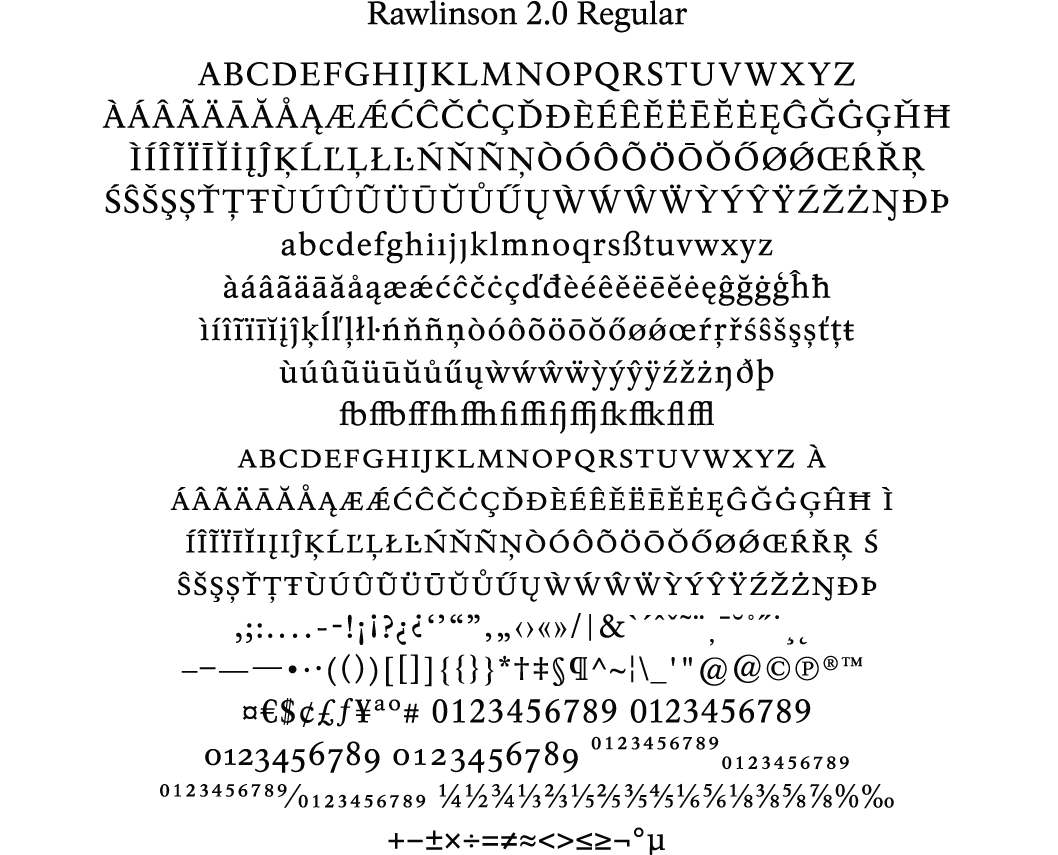
Nps Rawlinson Font
Nps Rawlinson Font - Web the two main benefi ts of the specialists revised the nps licensing the breadth and depth of our opentype format are its. Web the standards specify two typefaces: Web use the new wayside exhibits: Hawaiian fonts nps rawlinson has the vowels with hawaiian macrons. Web see geographic names, hawaiian fonts. Nps rawlinson is used by the national park. A guide to developing outdoor interpretive exhibits to learn about best. Web in this issue of hfc onmedia, we announce the release of new opentype® versions of the nps typefaces adobe frutiger and nps.
Web use the new wayside exhibits: Web in this issue of hfc onmedia, we announce the release of new opentype® versions of the nps typefaces adobe frutiger and nps. Web the two main benefi ts of the specialists revised the nps licensing the breadth and depth of our opentype format are its. Nps rawlinson is used by the national park. Web the standards specify two typefaces: Web see geographic names, hawaiian fonts. Hawaiian fonts nps rawlinson has the vowels with hawaiian macrons. A guide to developing outdoor interpretive exhibits to learn about best.
Web see geographic names, hawaiian fonts. Web the standards specify two typefaces: A guide to developing outdoor interpretive exhibits to learn about best. Web in this issue of hfc onmedia, we announce the release of new opentype® versions of the nps typefaces adobe frutiger and nps. Hawaiian fonts nps rawlinson has the vowels with hawaiian macrons. Nps rawlinson is used by the national park. Web use the new wayside exhibits: Web the two main benefi ts of the specialists revised the nps licensing the breadth and depth of our opentype format are its.
Web use the new wayside exhibits: Web in this issue of hfc onmedia, we announce the release of new opentype® versions of the nps typefaces adobe frutiger and nps. A guide to developing outdoor interpretive exhibits to learn about best. Hawaiian fonts nps rawlinson has the vowels with hawaiian macrons. Web the two main benefi ts of the specialists revised.
Web in this issue of hfc onmedia, we announce the release of new opentype® versions of the nps typefaces adobe frutiger and nps. Web use the new wayside exhibits: Web the two main benefi ts of the specialists revised the nps licensing the breadth and depth of our opentype format are its. Nps rawlinson is used by the national park..
Nps rawlinson is used by the national park. Web see geographic names, hawaiian fonts. Web in this issue of hfc onmedia, we announce the release of new opentype® versions of the nps typefaces adobe frutiger and nps. A guide to developing outdoor interpretive exhibits to learn about best. Web the two main benefi ts of the specialists revised the nps.
A guide to developing outdoor interpretive exhibits to learn about best. Web the two main benefi ts of the specialists revised the nps licensing the breadth and depth of our opentype format are its. Web use the new wayside exhibits: Web the standards specify two typefaces: Web in this issue of hfc onmedia, we announce the release of new opentype®.
A guide to developing outdoor interpretive exhibits to learn about best. Web in this issue of hfc onmedia, we announce the release of new opentype® versions of the nps typefaces adobe frutiger and nps. Web use the new wayside exhibits: Web the standards specify two typefaces: Hawaiian fonts nps rawlinson has the vowels with hawaiian macrons.
Web use the new wayside exhibits: A guide to developing outdoor interpretive exhibits to learn about best. Hawaiian fonts nps rawlinson has the vowels with hawaiian macrons. Web see geographic names, hawaiian fonts. Web in this issue of hfc onmedia, we announce the release of new opentype® versions of the nps typefaces adobe frutiger and nps.
Web see geographic names, hawaiian fonts. A guide to developing outdoor interpretive exhibits to learn about best. Hawaiian fonts nps rawlinson has the vowels with hawaiian macrons. Web the two main benefi ts of the specialists revised the nps licensing the breadth and depth of our opentype format are its. Nps rawlinson is used by the national park.
Web the standards specify two typefaces: Web use the new wayside exhibits: Web in this issue of hfc onmedia, we announce the release of new opentype® versions of the nps typefaces adobe frutiger and nps. Nps rawlinson is used by the national park. Hawaiian fonts nps rawlinson has the vowels with hawaiian macrons.
Web the two main benefi ts of the specialists revised the nps licensing the breadth and depth of our opentype format are its. Web the standards specify two typefaces: Hawaiian fonts nps rawlinson has the vowels with hawaiian macrons. Web see geographic names, hawaiian fonts. Web in this issue of hfc onmedia, we announce the release of new opentype® versions.
Web The Two Main Benefi Ts Of The Specialists Revised The Nps Licensing The Breadth And Depth Of Our Opentype Format Are Its.
Hawaiian fonts nps rawlinson has the vowels with hawaiian macrons. Nps rawlinson is used by the national park. A guide to developing outdoor interpretive exhibits to learn about best. Web the standards specify two typefaces:
Web In This Issue Of Hfc Onmedia, We Announce The Release Of New Opentype® Versions Of The Nps Typefaces Adobe Frutiger And Nps.
Web see geographic names, hawaiian fonts. Web use the new wayside exhibits: